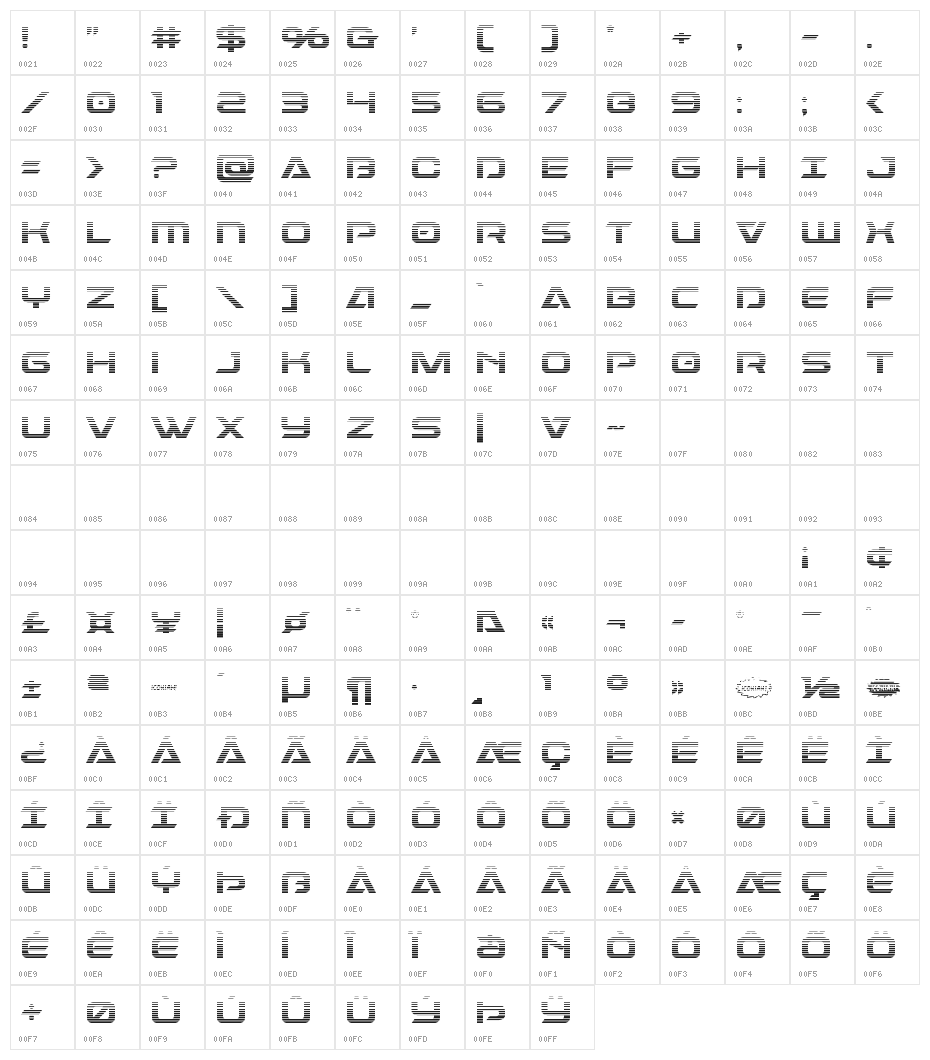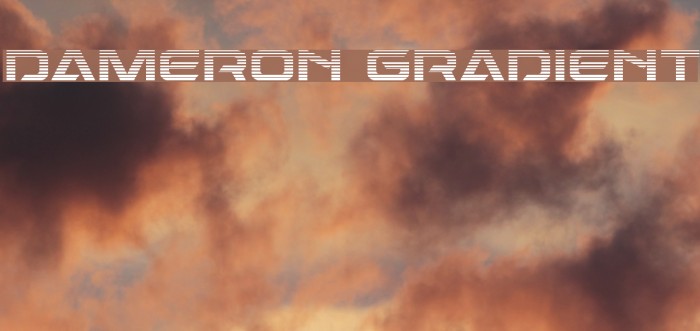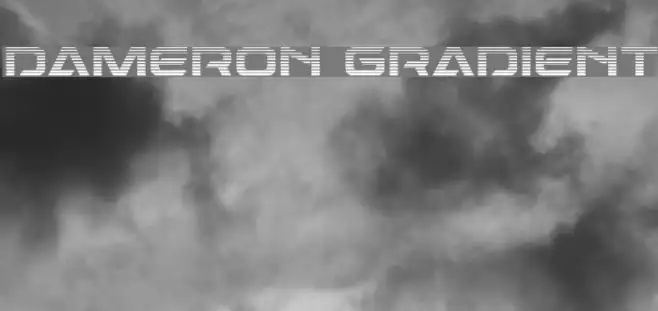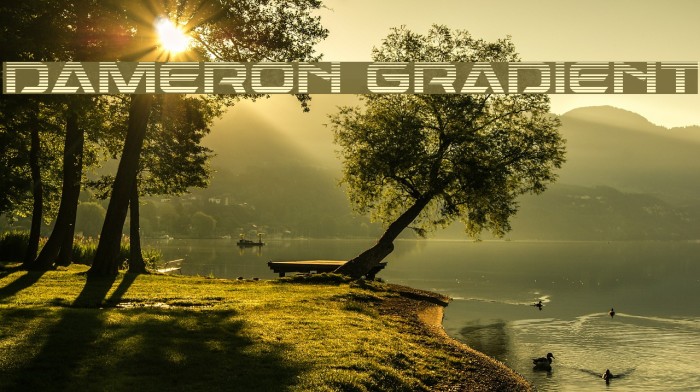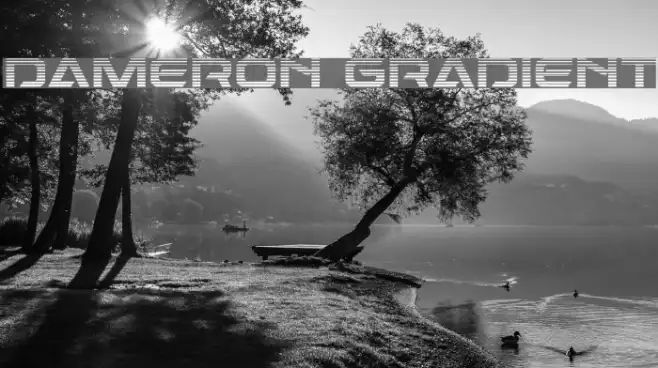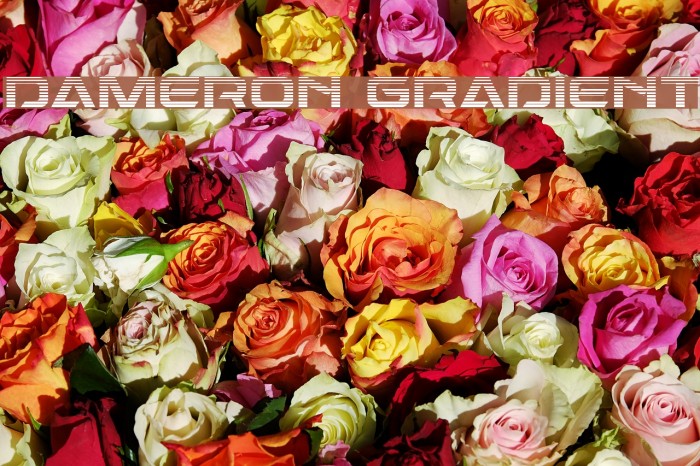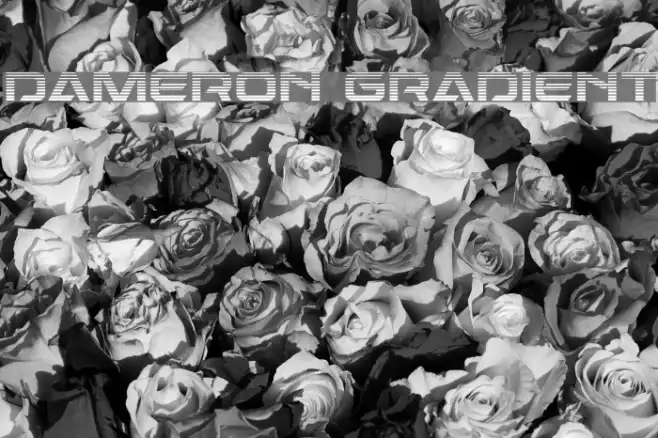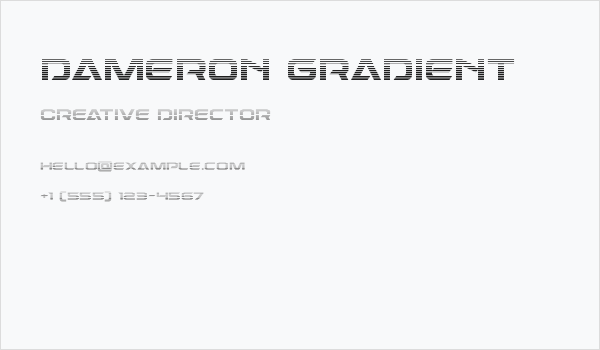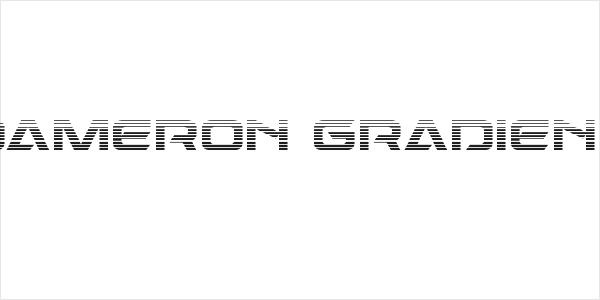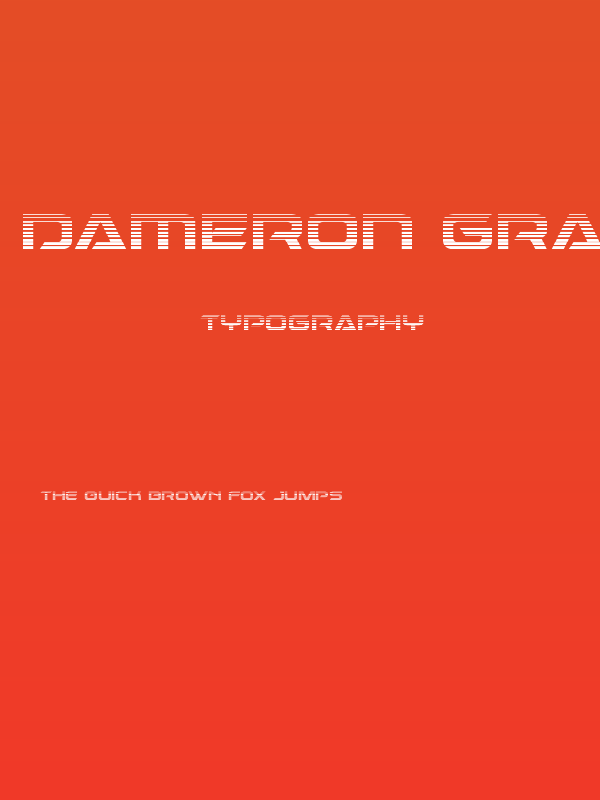
Dameron Gradient Font
Dameron Gradient Description
This font features a unique, futuristic design characterized by horizontal lines that create a gradient effect across each character. The uppercase and lowercase letters maintain a consistent style, with sharp angles and geometric shapes that give it a modern, tech-inspired look. The numerals and special characters follow the same design principles, ensuring uniformity across all glyphs. The font's distinct appearance makes it ideal for projects that require a bold and innovative aesthetic.
| Proposed Projects | Ideal for tech branding, sci-fi themed designs, video game interfaces, and modern advertising campaigns. |